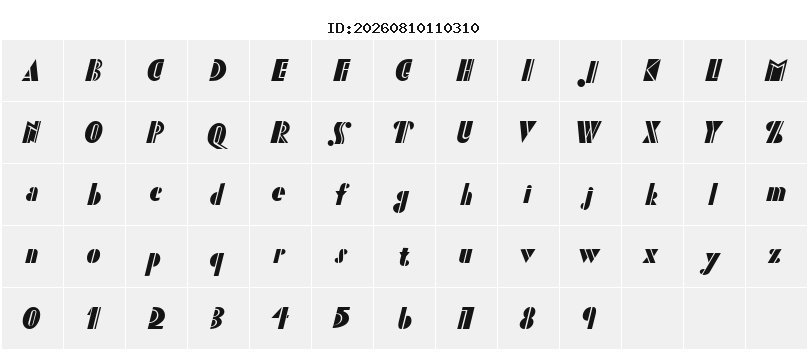
P22 Sinel Preview
• Font Name: P22 Sinel
• Full Font Name: P22 Sinel
About P22 Sinel.ttf
P22 Sinel.ttf is a modern, elegant sans-serif font designed for ultimate readability and visual harmony. Perfect for branding, headlines, web design, and print materials.